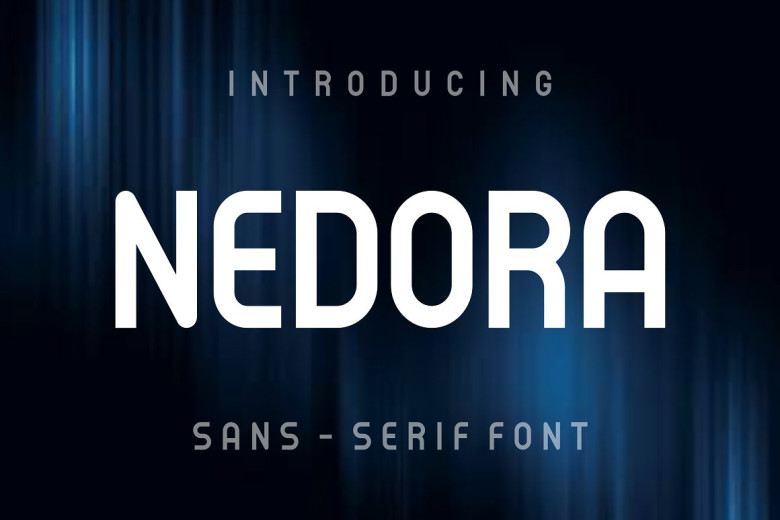
Nedora Font
Nedora Font in Bold traffic signs for Sans Serif typeface. It’s pretty cool when you want to get out of monthly rental period (although I myself still have half year left on contracts). If you like it, it’s yours–don’t hesitate! Whether you want to submit it elsewhere or put your own name at the end, this is the way to promote yourself.
Nedora Sans Serif Font